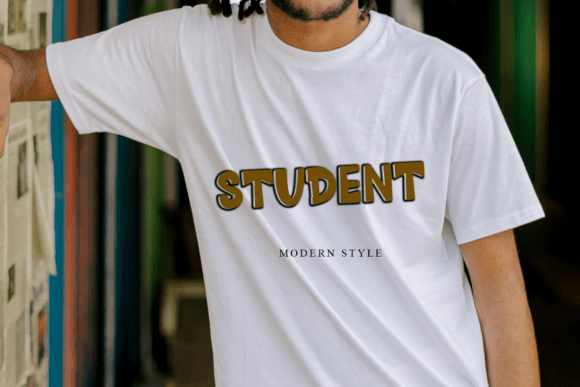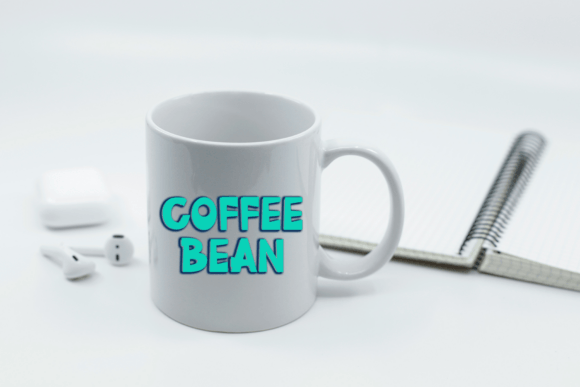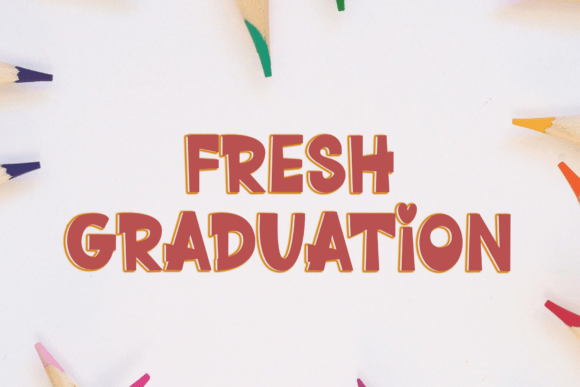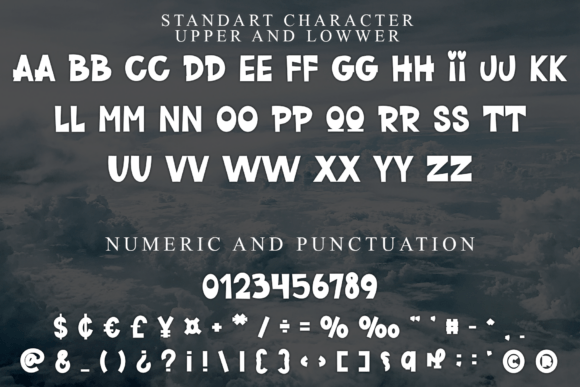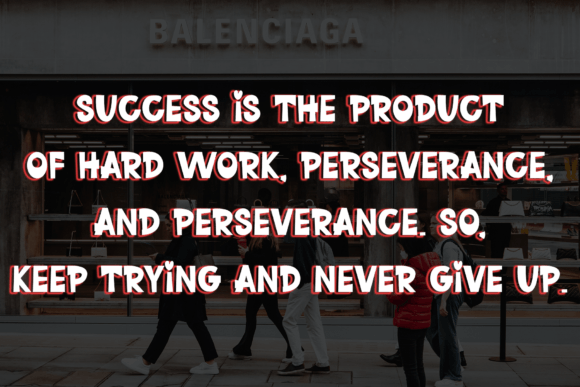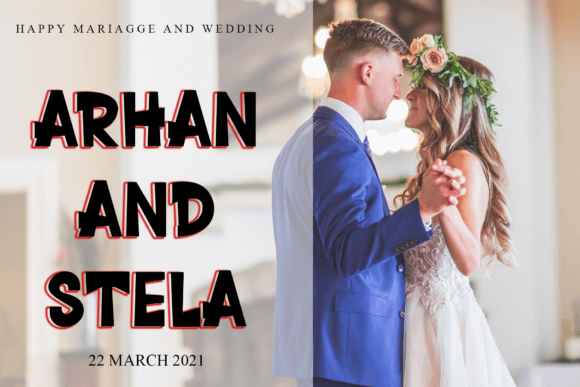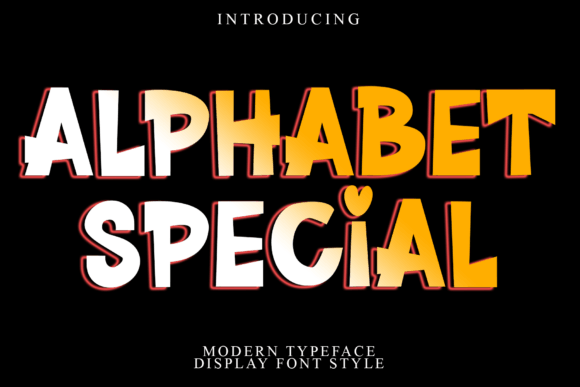
Introducing Alphabet Special Font: The Ultimate Display Font for Bold and Playful Designs
Are you tired of using the same old fonts for your designs? Look no further than Alphabet Special Font, a fun and bold display font that’s sure to grab attention. With its unique and playful design, Alphabet Special is perfect for headlines, posters, and any project that needs a little extra oomph.
What Makes Alphabet Special Font So Special?
Alphabet Special Font is a one-of-a-kind display font that’s designed to stand out from the crowd. Its bold and playful design makes it perfect for projects that need a little extra personality. Whether you’re designing a poster, a headline, or a social media graphic, Alphabet Special Font is sure to make your text pop.
Key Features of Alphabet Special Font
- Unique and Playful Design: Alphabet Special Font features a unique and playful design that’s sure to grab attention.
- Bold and Eye-Catching: This font is bold and eye-catching, making it perfect for headlines, posters, and other projects that need to stand out.
- Easy to Read: Despite its bold design, Alphabet Special Font is easy to read, even at smaller sizes.
- Versatile: This font is versatile and can be used for a wide range of projects, from posters and headlines to social media graphics and more.
Uses for Alphabet Special Font
Alphabet Special Font is perfect for a wide range of projects, including:
- Posters and Flyers: Add a bold and playful touch to your posters and flyers with Alphabet Special Font.
- Headlines and Titles: Use Alphabet Special Font to create bold and eye-catching headlines and titles for your blog posts, articles, and more.
- Social Media Graphics: Add a pop of personality to your social media graphics with Alphabet Special Font.
- Logos and Branding: Use Alphabet Special Font to create a unique and memorable logo or branding element for your business.
Why Choose Alphabet Special Font?
There are many display fonts to choose from, but Alphabet Special Font stands out from the crowd. Here are just a few reasons why:
- Unique Design: Alphabet Special Font features a unique and playful design that’s sure to grab attention.
- High-Quality: This font is high-quality and professionally designed, ensuring that it will look great in any project.
Tips for Using Alphabet Special Font
Here are a few tips for using Alphabet Special Font in your designs:
- Use it Sparingly: Because Alphabet Special Font is bold and eye-catching, it’s best to use it sparingly. Use it for headlines and titles, but stick to a more traditional font for body text.
- Experiment with Colors: Alphabet Special Font looks great in a wide range of colors. Experiment with different colors to find the one that works best for your project.
- Pair it with Other Fonts: Alphabet Special Font pairs well with a wide range of other fonts. Experiment with different pairings to find the one that works best for your project.
Alphabet Special Font is a fun and bold display font that’s perfect for projects that need a little extra personality. With its unique and playful design, this font is sure to grab attention and make your text pop. Whether you’re designing a poster, a headline, or a social media graphic, Alphabet Special Font is a great choice. So why wait? Download Alphabet Special Font today and start creating bold and eye-catching designs!